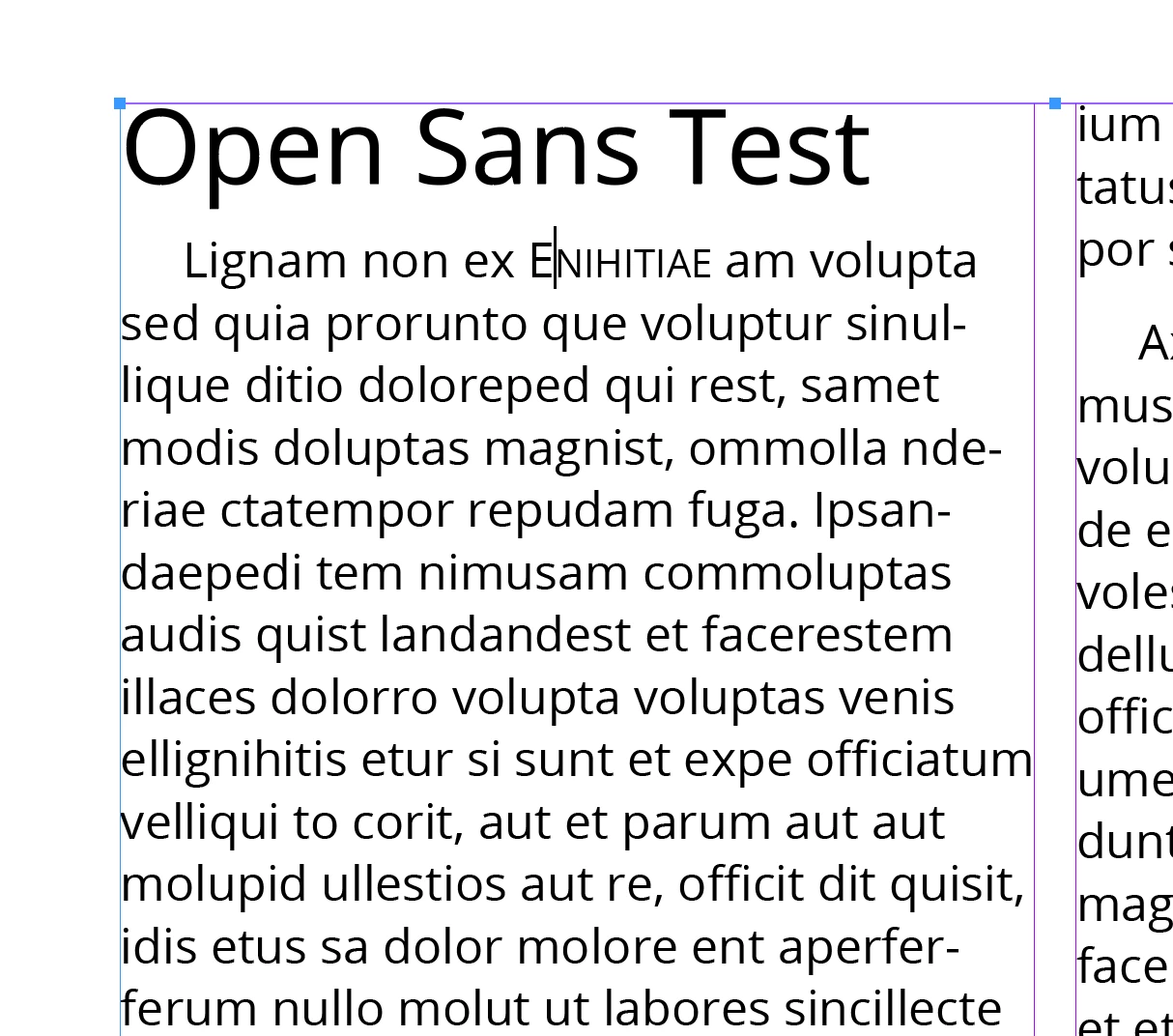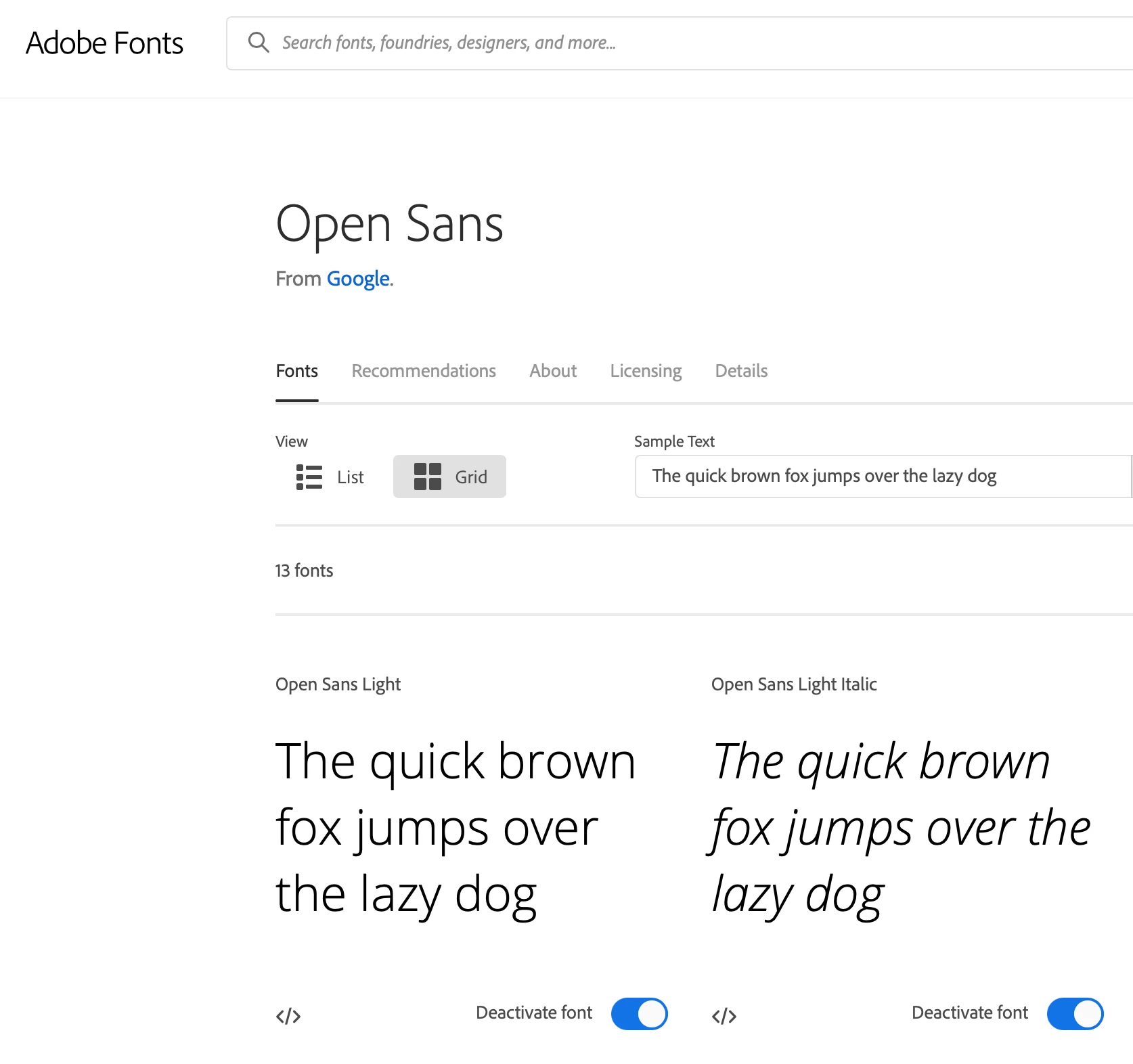
San Serif open type font switched font style on certain letters when I used Large Cap/Small Cap tool
I have a document I created using Open Sans font. No problems until I was making my last round of corrections. I typed my content into the textbook in all lower case, then clicked on the Large Cap/Small Cap tool. The "I"s showed up as seriffed letters and did not reduce to the small cap size. Also, I noticed when I typed into a new text box in all caps, the I's were continuing to appear with Serifs on them. That was the only letter that did. I reloaded by font into font book, where the preview of the font shows up correctly. It was just not appearing in my document correctly. How does such a thing happen? Open Sans is a free downloadable font.